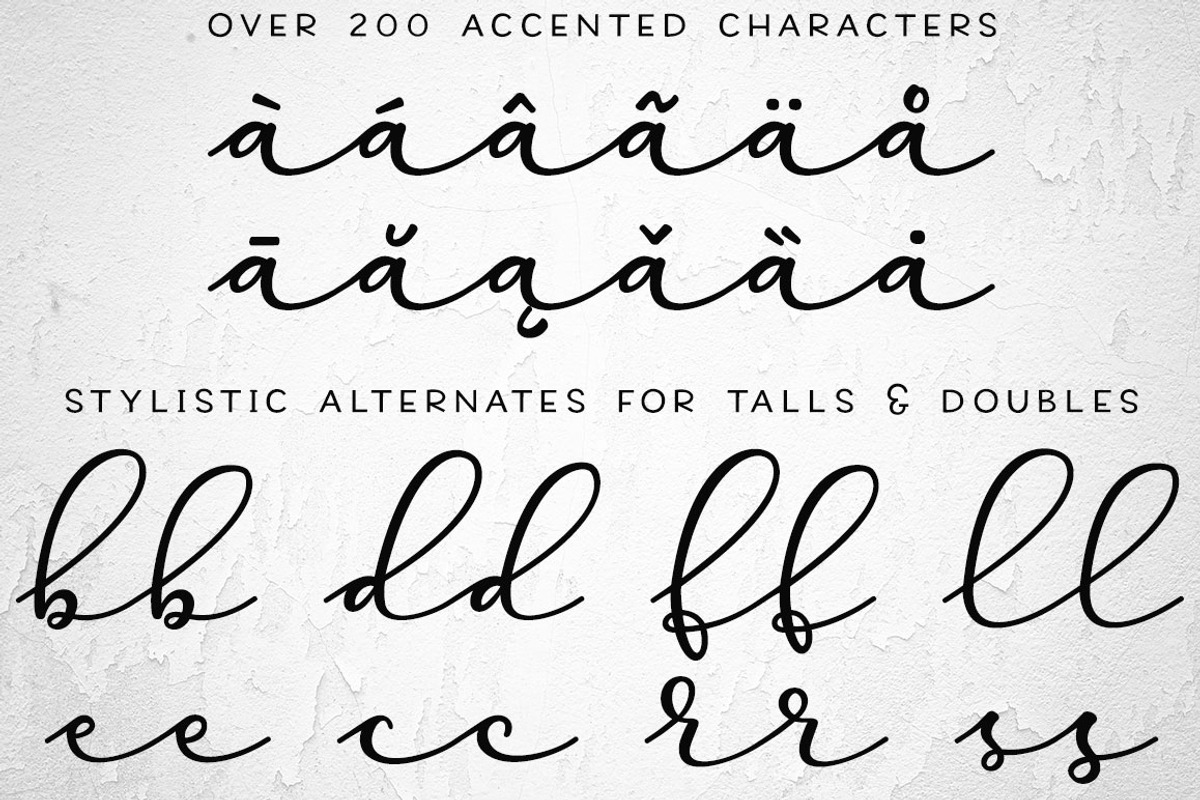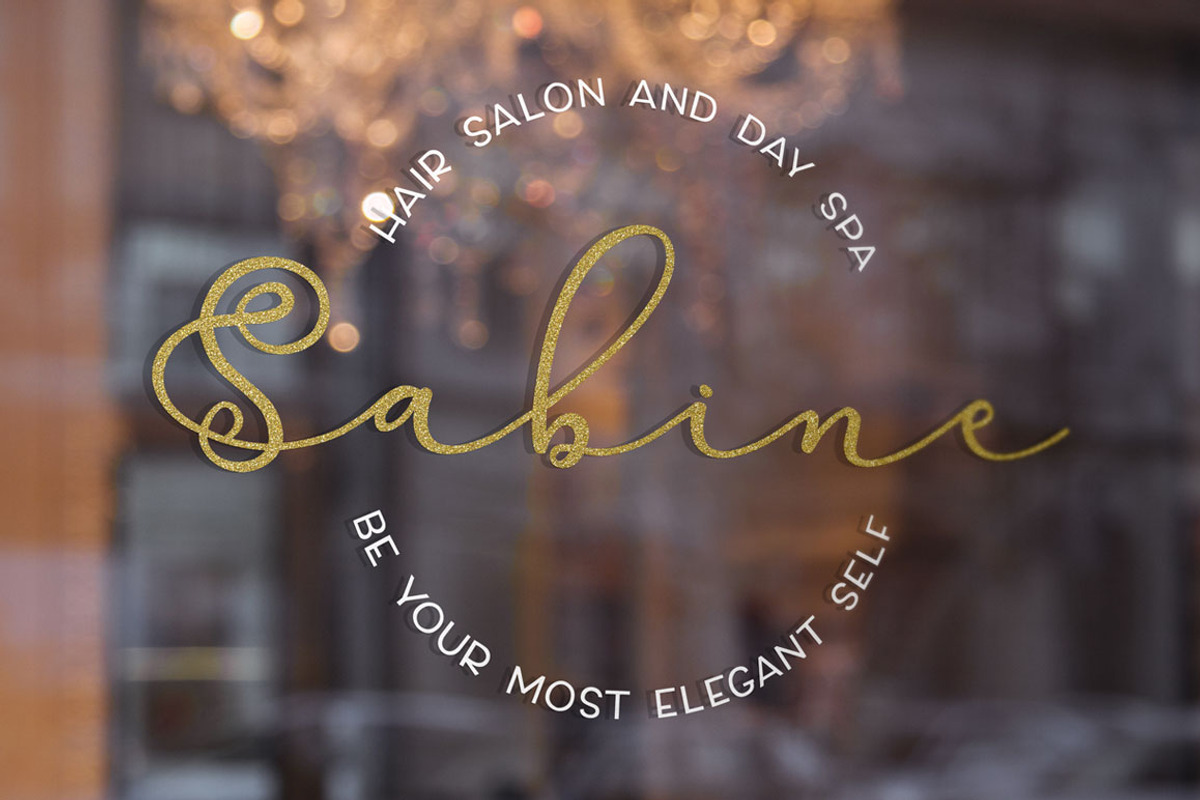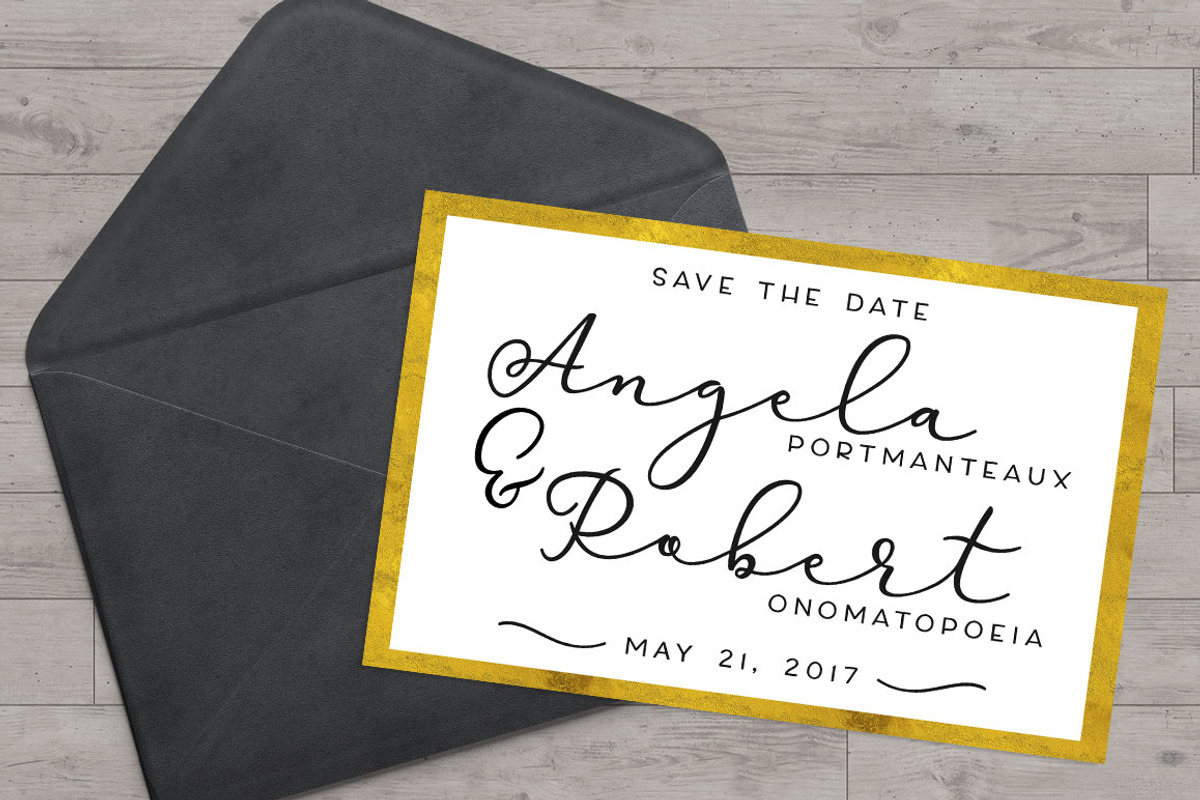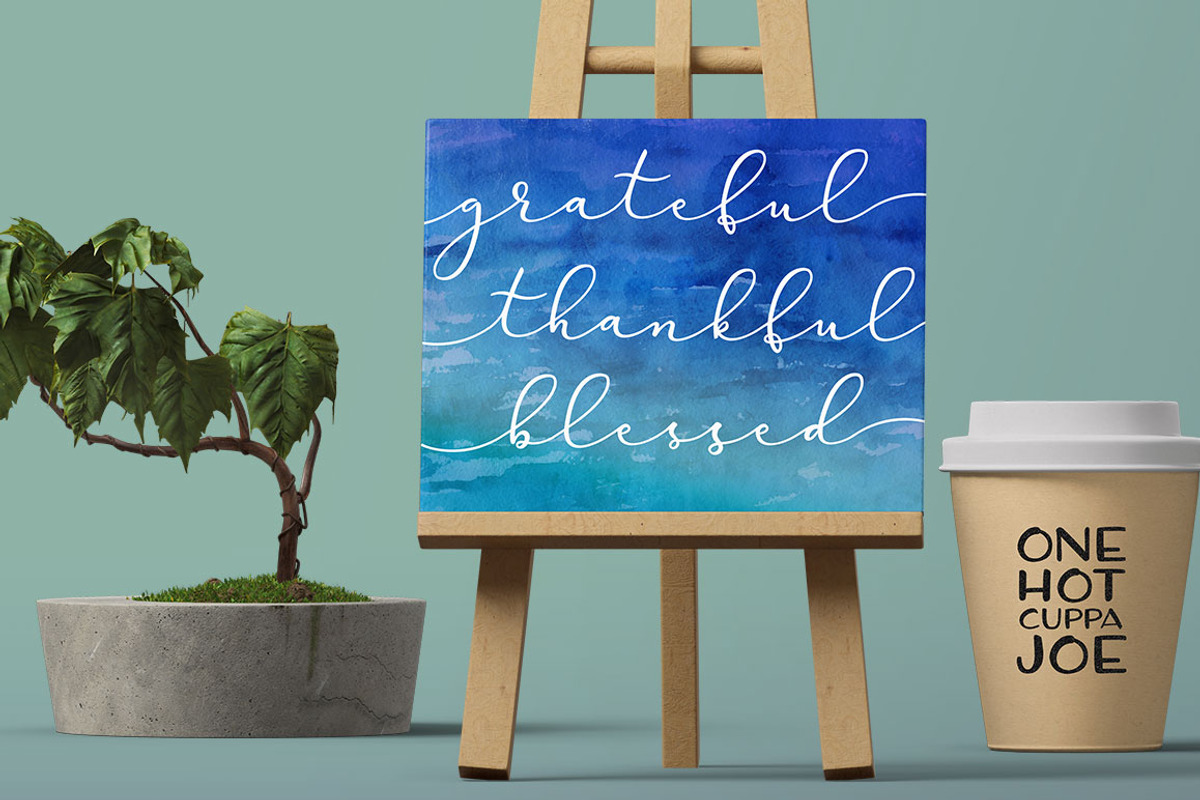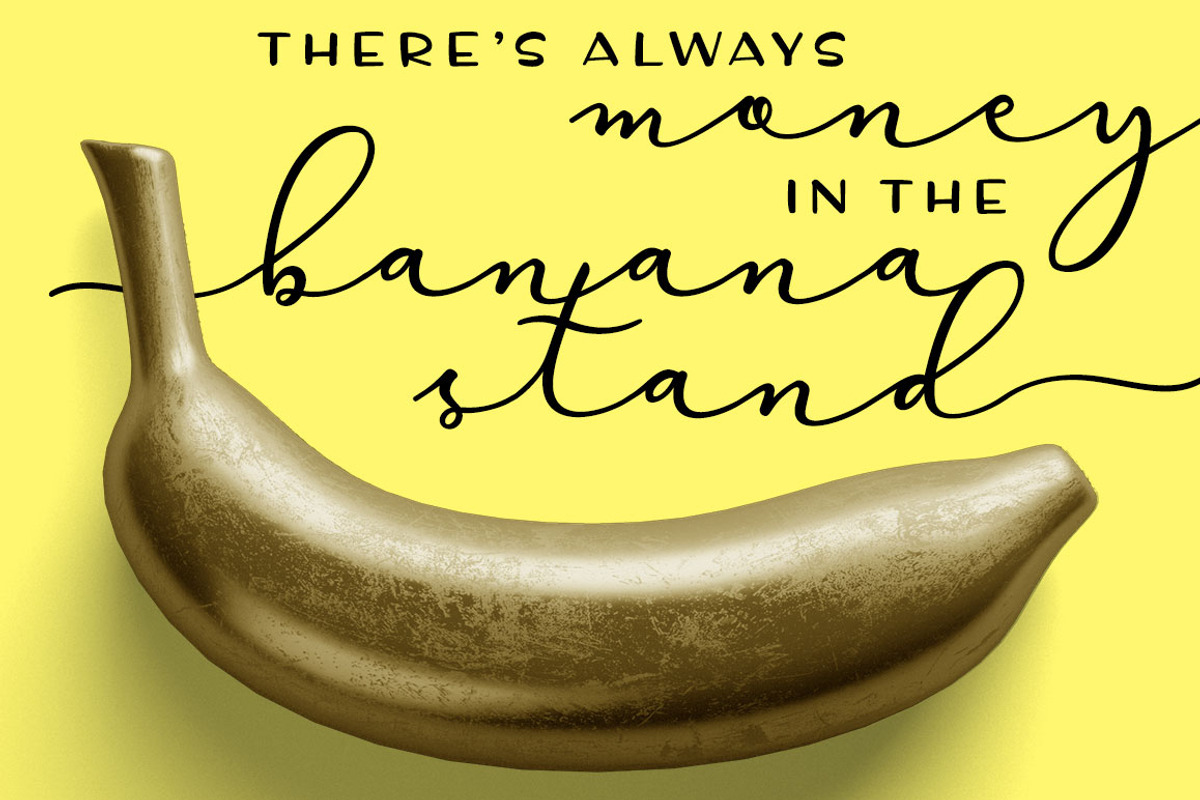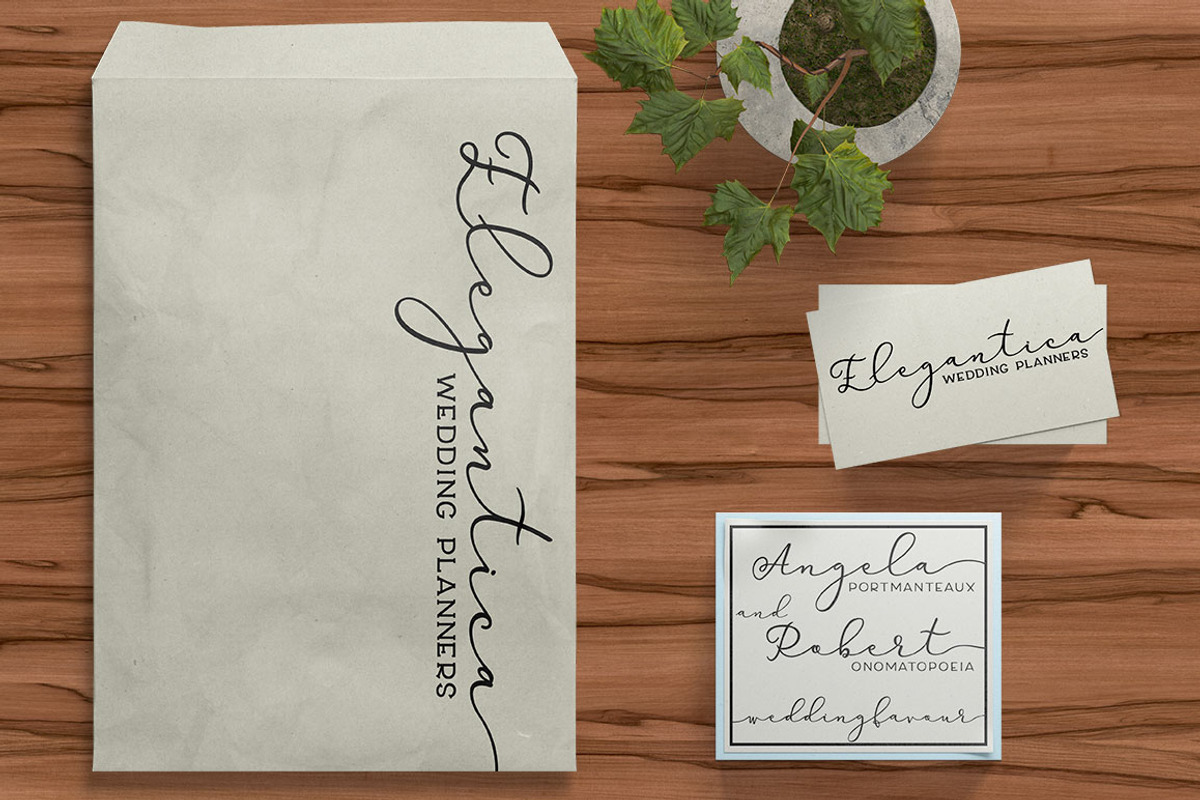
Virga - connecting script font
Virga - connecting script font by Missy Meyer is a font selected for branding, posters, packaging, typography.
- Virga Script contains over 200 accented characters for foreign language support (including English, French, Spanish, German, Polish, Romania
- (We see a lot of it here in the deserts of Arizona.) Virga is also a connecting script font with smooth transitions and extra-fancy uppercas
- Each lowercase letter in Virga Script has a short stroke leading into the letter, allowing them all to start a word with a little bit of fla
- Virga Script contains over 200 accented characters for foreign language support (including English, French, Spanish, German, Polish, Romania
Why Virga - connecting script font is worth a look
Virga - connecting script font by Missy Meyer fits naturally into Branding, posters, packaging, typography.